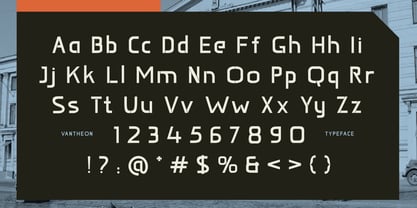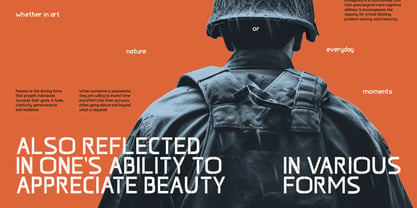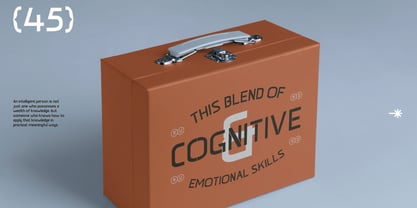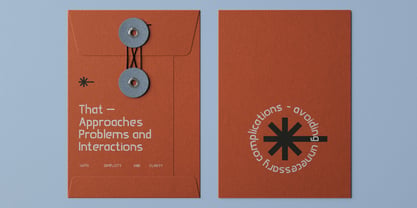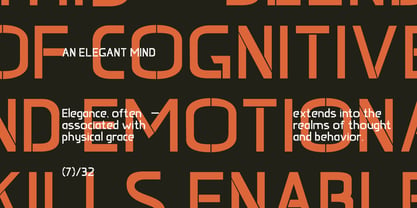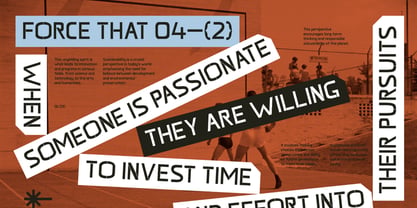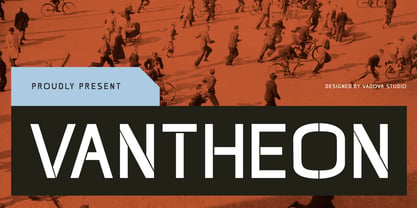
Vantheon
Die Schriftfamilie Vantheon wurde von entworfen und von Vadova Std veröffentlicht. Vantheon enthält 1 Stile. Mehr über diese Familie
Vantheon is a bold and futuristic stencil sans serif typeface with a technical edge and clean geometry. Designed with a modernist sensibility, this font combines sharp-cut forms and industrial inspiration, making it perfect for high-impact designs in technology, innovation, and creative branding. The stencil breaks are functional yet stylish, allowing for both digital clarity and print versatility. Vantheon includes uppercase, lowercase, numbers, punctuation, and symbols, and supports multiple languages. Ideal for posters, sci-fi covers, app interfaces, event graphics, or editorial spreads that demand an assertive and structured visual voice. Vantheon is particularly well-suited for projects that require a forward-thinking, innovative look—whether in tech startup branding, modern poster design, game titles, sci-fi book covers, or UI interfaces. The distinct stencil breaks provide a visual rhythm while maintaining clarity and functionality in both web and print. Its sleek and sharp character set makes it a standout choice for impactful headings, marketing assets, and product designs that strive for a cutting-edge presence.